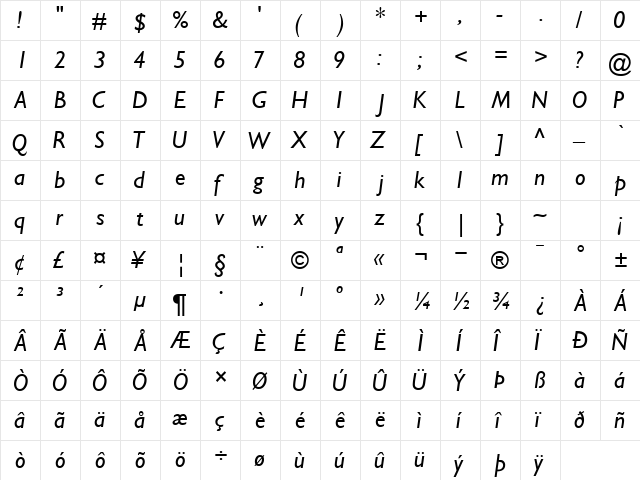
GimletSSK Italic
Design Context for GimletSSK Typeface
GimletSSK is a composed and adaptable typeface that performs quietly and consistently across a wide range of design contexts. Its italic angle brings a sense of urgency and motion to the letterforms.
Pro Tip: Use GimletSSK for emphasis, pull quotes, and subheadings where its slanted energy can add rhythm to the layout.